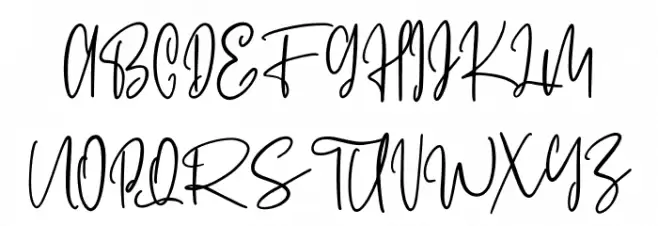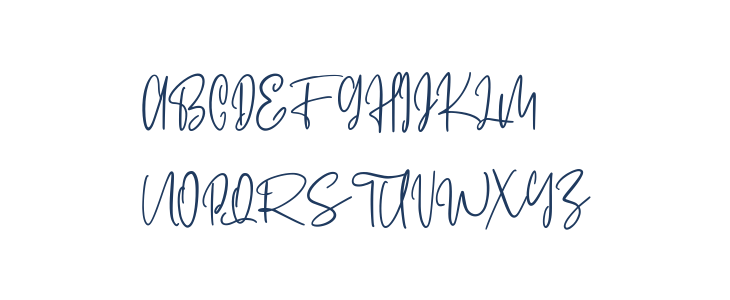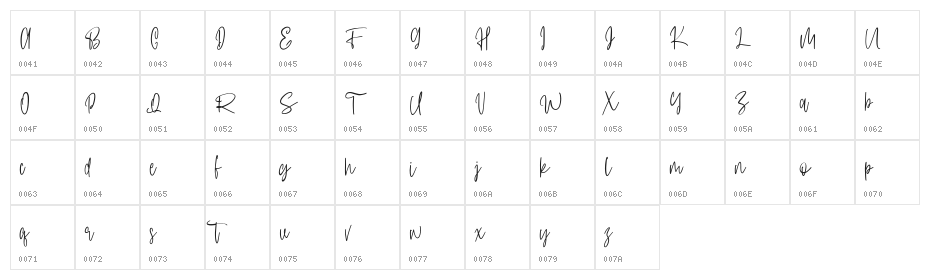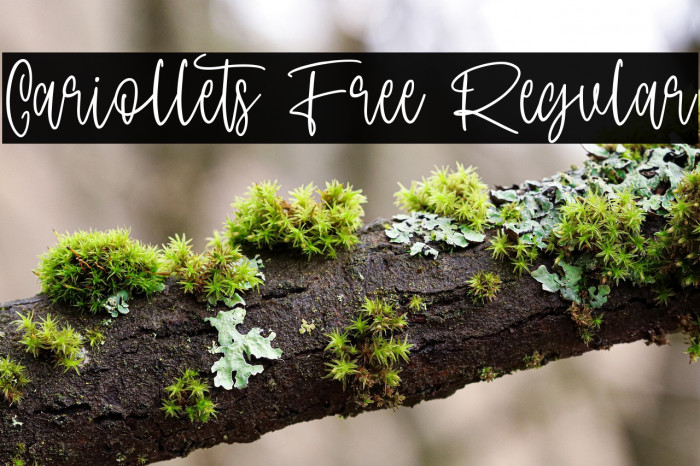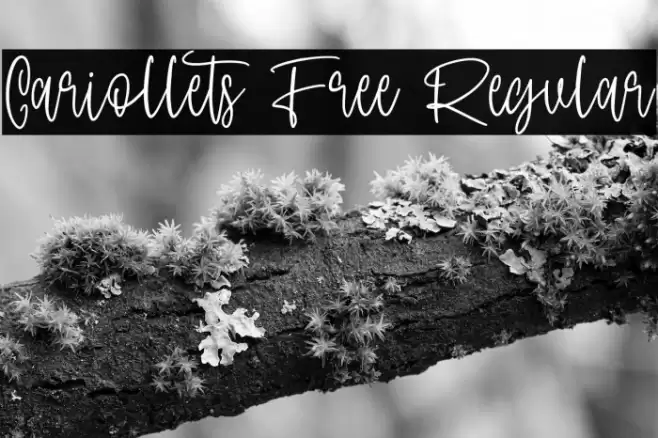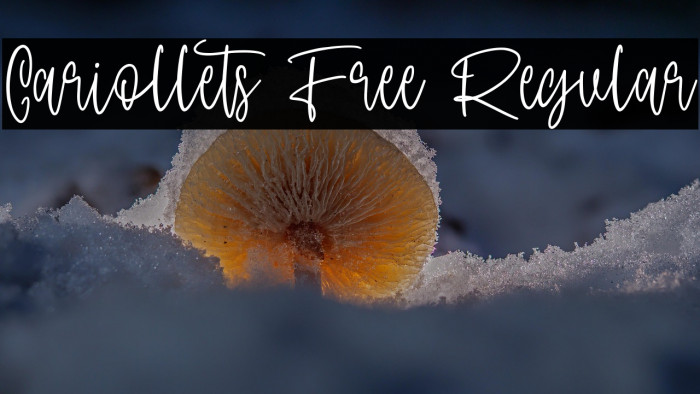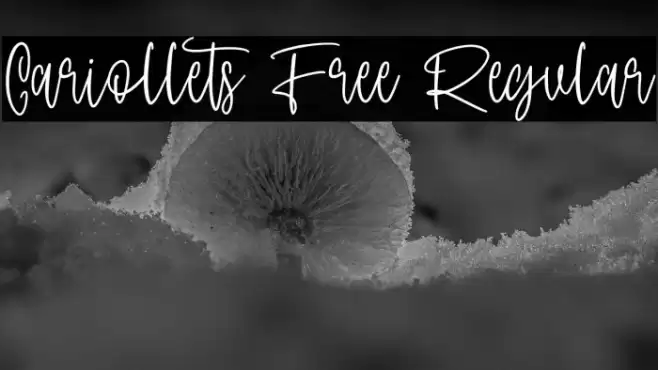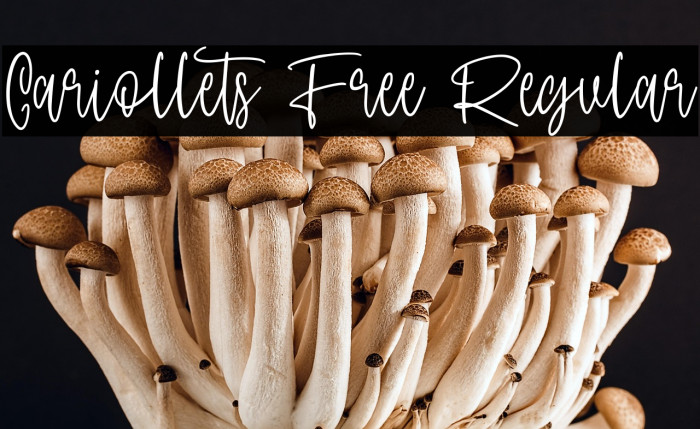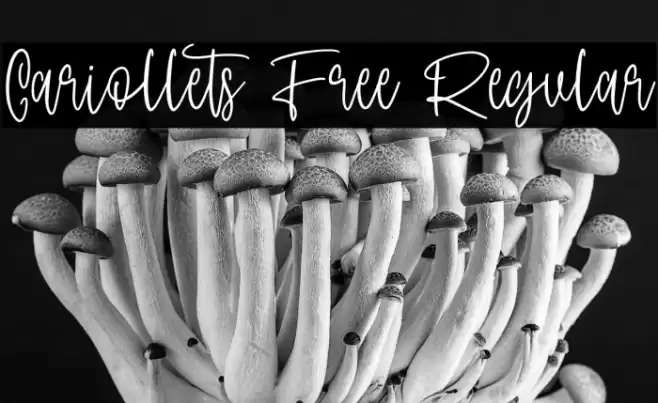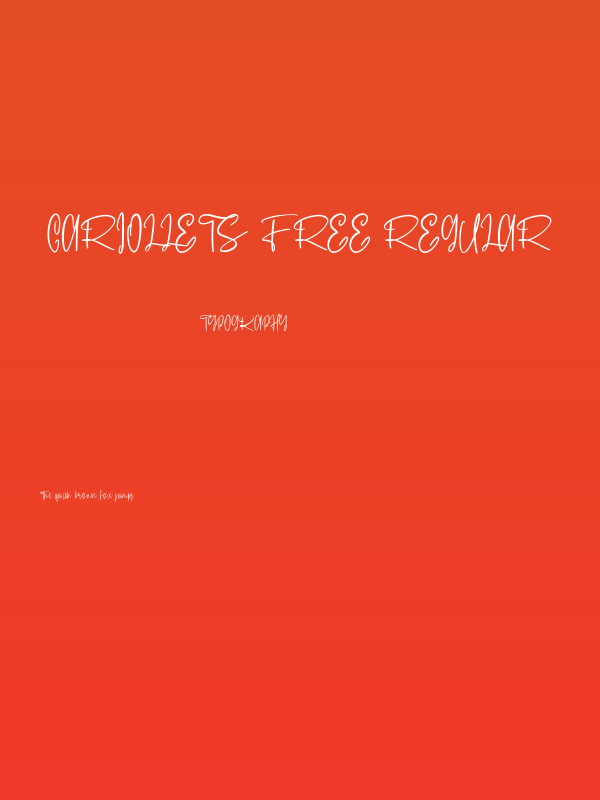
Cariollets Free Regular Font
Cariollets Free Regular Description
A handwritten, cursive script font with a casual and elegant style, featuring flowing, connected characters with varying stroke widths.
| Overall Style | Casual, Elegant, Handwritten |
| Use Case | Invitations, Personal branding, Logos, Greeting cards |